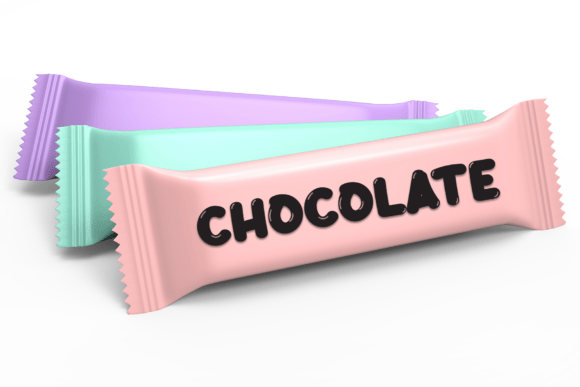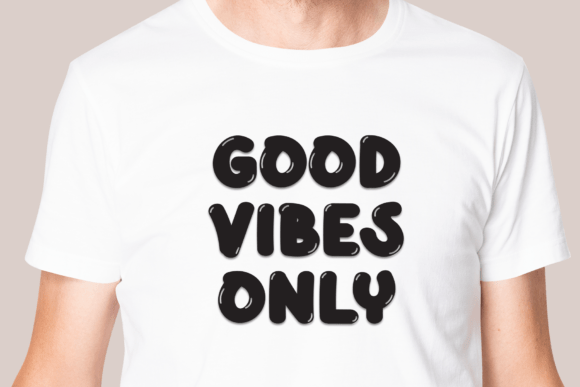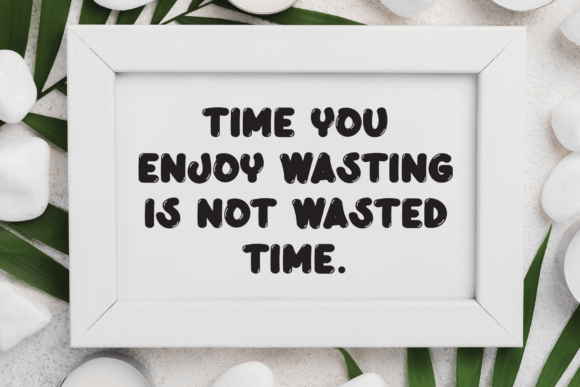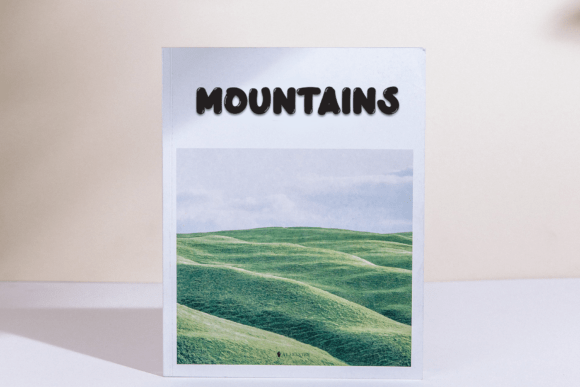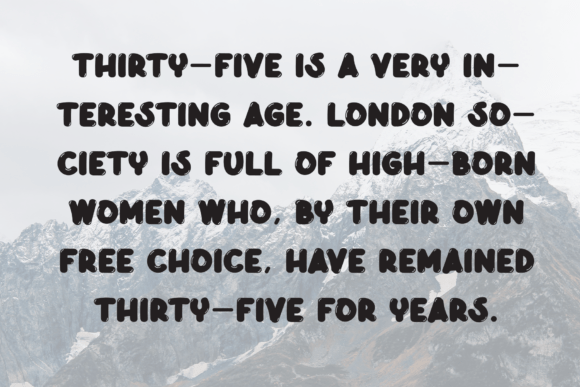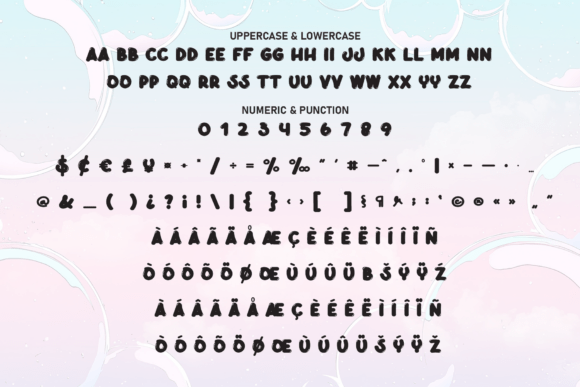
The Magic of Handwritten Typography
Have you ever stumbled upon a font that makes you feel like you’re holding a childhood sketchbook? For designers, this feeling is a rare treasure. It’s the moment when a font speaks directly to your creative soul, reminding you of the joy and freedom of creating something new. For many of us, this moment is tied to the whimsical world of Disney, where imagination knows no bounds.
Enter the Bubble Disney Font, a delightful display font that captures the essence of modern handwritten typography. With its clean lines, balanced letterforms, and subtle rounded edges, this font is the perfect blend of simplicity and approachability. Whether you’re designing a brand, headline, or packaging, the Bubble Disney Font adds a warm and inviting touch to any design.
As a valuable addition to any designer’s toolkit, the Bubble Disney Font offers clarity and charm in equal measure. Its crisp structure and versatile style make it an ideal choice for digital content, packaging, and branding projects. With the Bubble Disney Font, you can add a touch of magic to your designs and connect with your audience on a deeper level.
Bubble Disney Font Key Features
- Unique Characteristics: The Bubble Disney Font features a distinctive, playful, and whimsical design, with rounded shapes and soft lines that evoke a sense of childhood wonder and magic.
Bubble Disney Font Review
As a designer, I was excited to dive into the Bubble Disney Font. At first glance, it has a certain charm to it, with a playful and whimsical feel that’s reminiscent of classic Disney magic ✨. The font is highly customizable, allowing users to easily adjust the size, color, and spacing to fit their needs. This flexibility is a major plus, making it a great choice for designers looking to add a touch of Disney flair to their projects.
- Playful and whimsical feel that’s reminiscent of classic Disney magic ✨
- Works well in a variety of contexts, from children’s books to advertising materials
However, there are some limitations to consider ⚠️. The font is not as versatile as some other options, and may not be suitable for more formal or professional projects. Additionally, the font’s style can be a bit too “on the nose” for some users, making it feel like a cheap imitation of the real thing. Overall, I would recommend the Bubble Disney Font for designers who are looking for a fun and playful touch, but may not be the best choice for more serious or high-end projects.